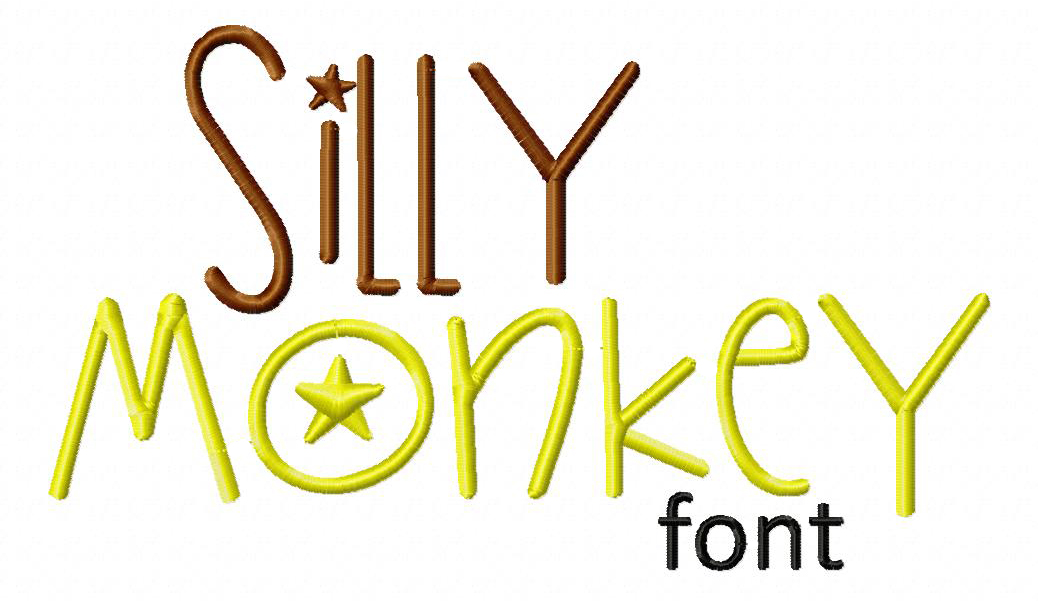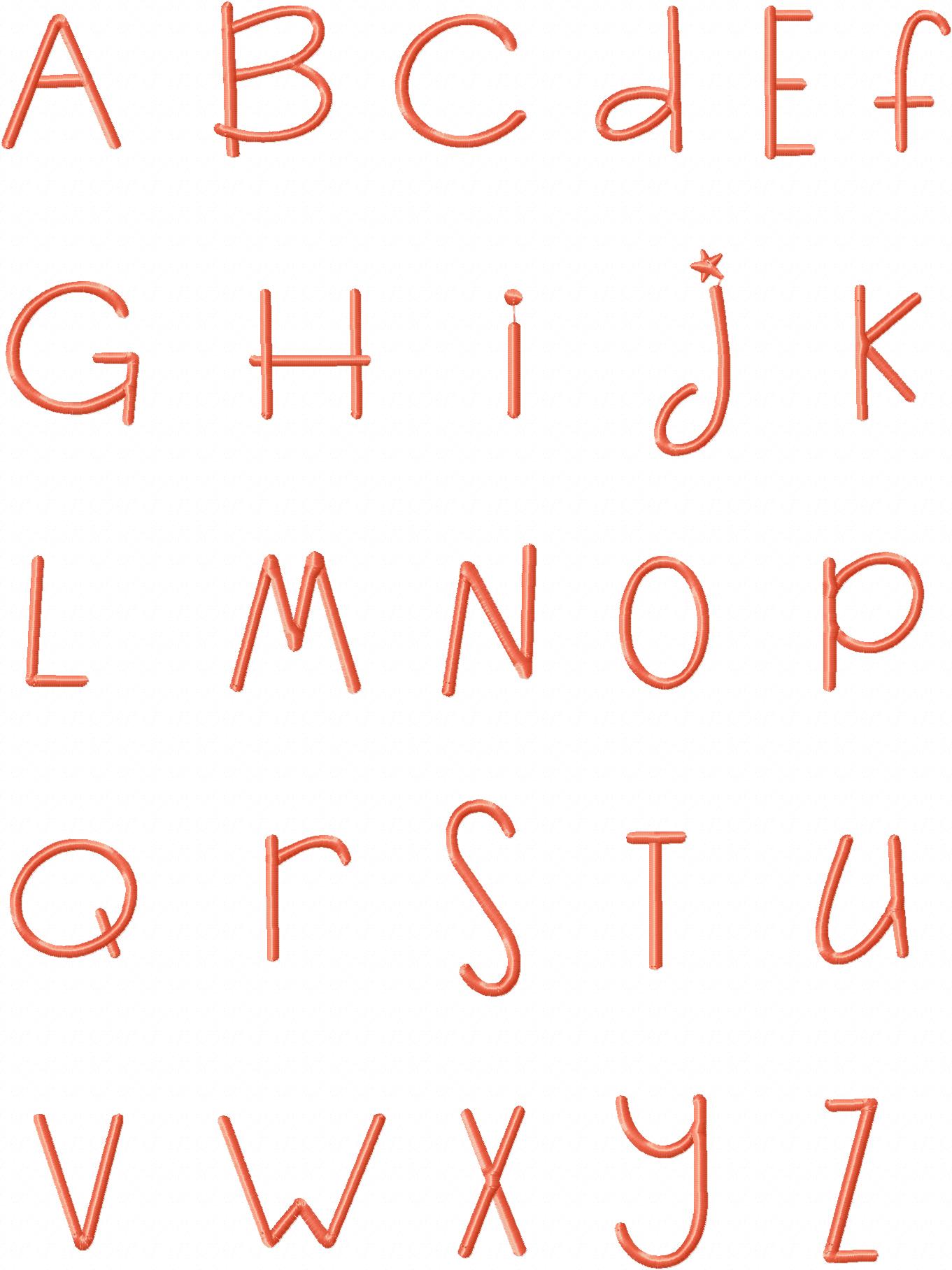
The Silly Monkey Machine Embroidery Font Set includes Upper and Lowercase Letters, Numbers and Bonus Punctuation in all of the following sizes: 1" 2" & 3"
Font Created by Kimberly Geswein and digitized by BlastoStitch.com